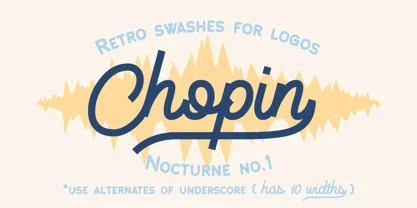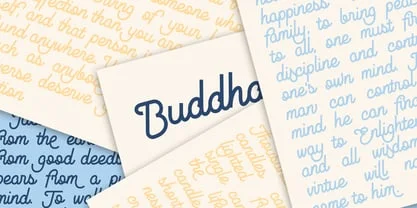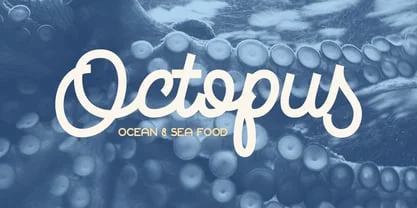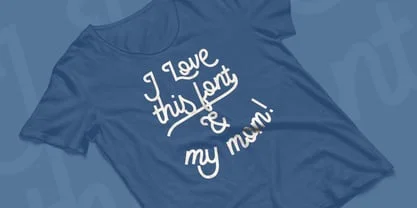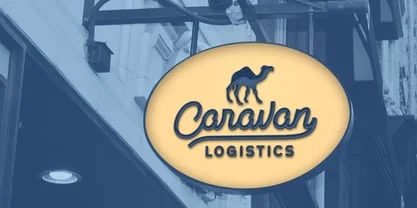
Cadency Font
A good typeface communicates tone before a single word is read. Cadency achieves this through controlled contrast that rewards close inspection. The typeface brings a versatile sensibility to a broad range of creative disciplines, with distinctive character without sacrificing readability that holds up whether the work is print-first or screen-first.
In practice, Cadency proves particularly effective for social media graphics, poster creation, annual reports, advertising campaigns, environmental graphics. Designers reaching for it find that the type decisions feel resolved rather than laboured — a useful quality when client timelines are tight.
The range of applications extends to editorial layouts, web design, product labels, signage systems. That breadth is deliberate: the proportions and spacing were stress-tested across a wide range of mock briefs before the typeface was finalised.
The consistent rhythm of Cadency across a full paragraph creates the kind of even grey value that makes extended reading comfortable, a detail that matters more in long-form content than its subtlety might suggest.
In-house creative teams at consumer brands find Cadency a reliable choice for projects that demand both personality and restraint. The design avoids the self-conscious quirkiness that dates quickly, settling instead for considered distinctiveness that holds up over time.